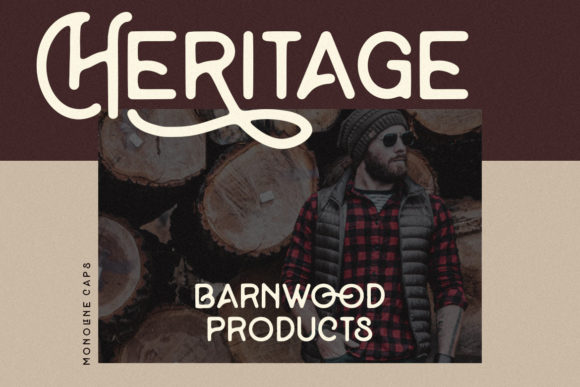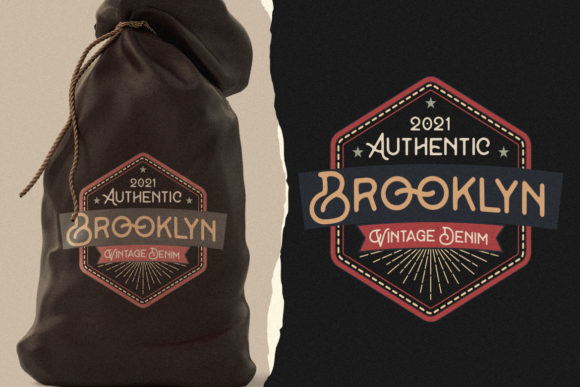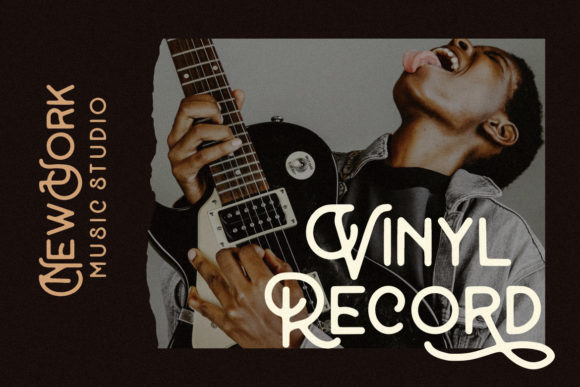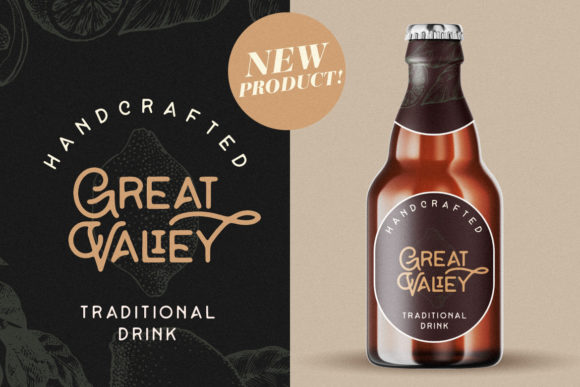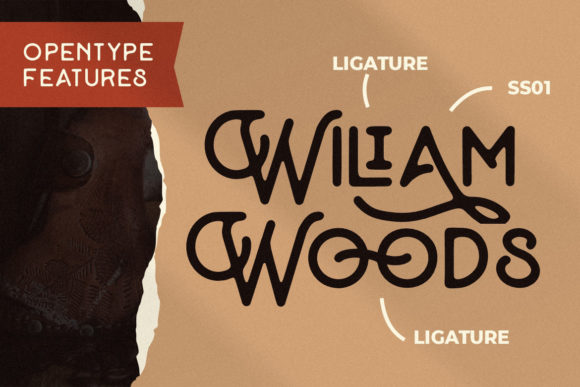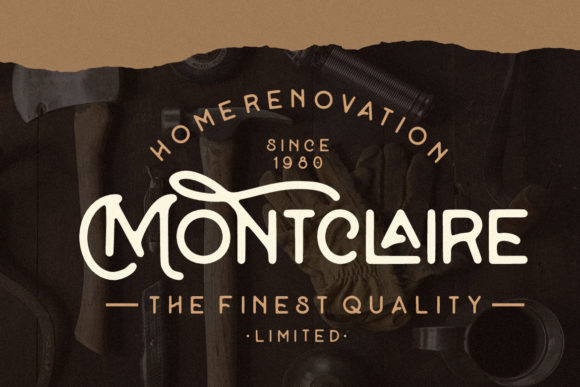
Introduction to Lamorry Font
Have you ever stared at a blank canvas, feeling the urge to bring your creative vision to life, but struggling to find the perfect font to match your artistic vision? We’ve all been there, and that’s exactly why we’re excited to introduce you to the Lamorry Font – a stunning, organic display font that’s sure to elevate your next design project.
As a valuable resource for designers, Lamorry Font offers a perfect balance of style and versatility, making it an ideal choice for any creative project. With its unique blend of flair and sophistication, this font is designed to add a touch of elegance to your designs, from social media graphics to marketing materials and beyond.
Lamorry Font
- Unique characteristic: Unique calligraphy style, perfect for adding a touch of elegance to any design
Honest Review: Lamorry Font
I recently had the opportunity to work with the Lamorry Font, and I’m excited to share my honest review with you. As a designer, I’m always on the lookout for high-quality design resources that can help elevate my creative projects.
One of the standout features of the Lamorry Font is its versatility. It comes with a variety of styles, from bold and playful to elegant and sophisticated. This makes it an excellent choice for a wide range of creative projects, from logos and branding to editorial design and digital art. ✨
However, I did find a few limitations with the Lamorry Font. For one, the font is not as extensive as some other options on the market. It’s a relatively small collection, which may not be ideal for designers who need a wide range of styles. Additionally, the font may not be as suitable for very large-scale projects. ⚠️
Overall, I was impressed with the Lamorry Font. It’s a great choice for designers who want a high-quality, versatile font that’s easy to use. While it may have some limitations, I think it’s definitely worth checking out.
Tips for Getting the Most Out of Lamorry Font
Experiment with different font sizes and colors to find the perfect combination for your design. Use the font in conjunction with other design elements to create a cohesive and visually appealing look.
The Lamorry Font is perfect for a variety of creative projects, including graphic design, branding, and marketing materials. Its high-quality design and transparent background make it a versatile resource for designers of all levels.